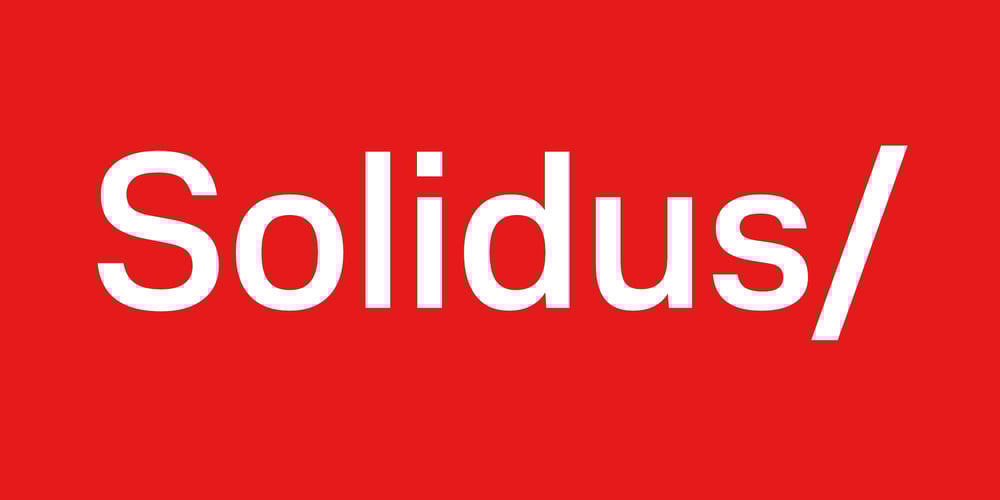
Solidus Font Family was designed by Stuart Brown and published by Brown Type. Solidus contains 18 styles and family package options. Inspired by the heuristic typography of the Concrete Poetry movement, Solidus is a hardworking and unobtrusive sans in the Neo-grotesque style. Its simplified features, generous spacing and squarish curves imbue a sense of sobriety and allow the textual information to take centre stage, whether in body copy or at display sizes. Solidus is available in nine distinctive weights from wafer-thin Hairline to a hefty Black, each with accompanying italics. Typical of the Neo-grotesque style the italics are slanted in construction and have the same advance width as the uprights.